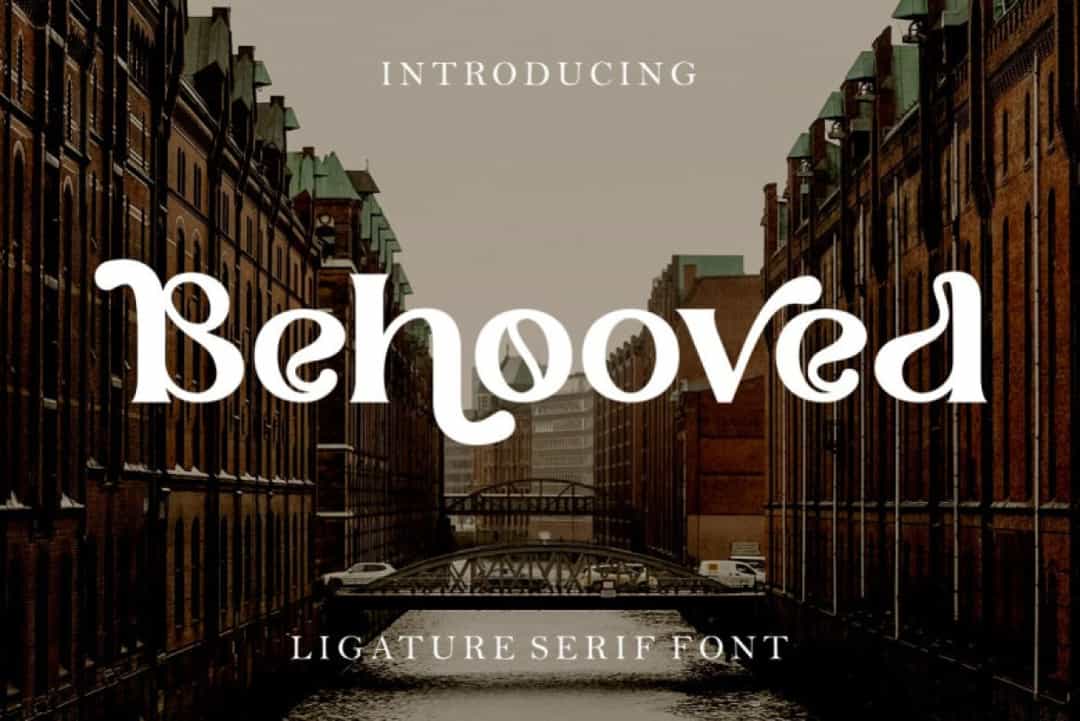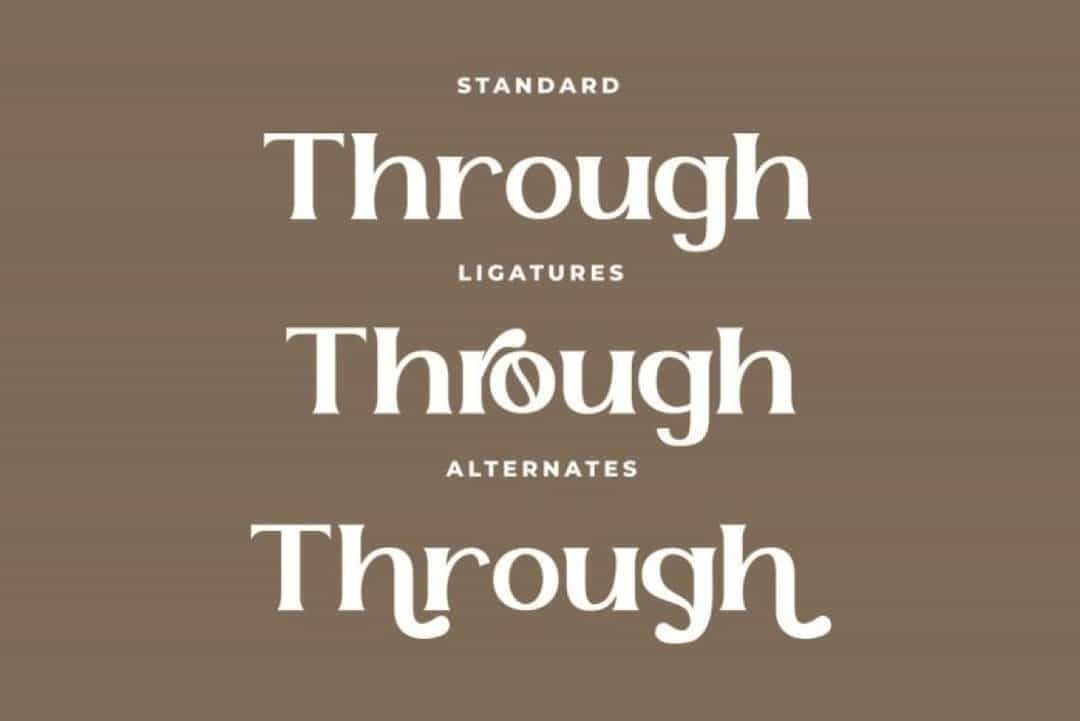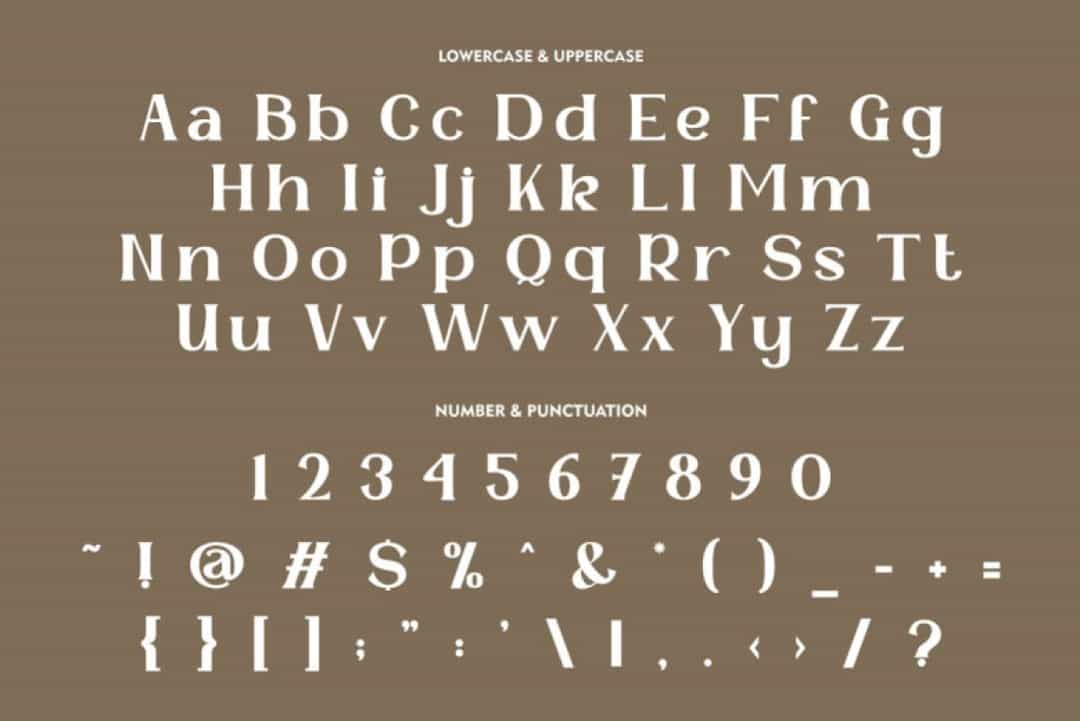
Behooved is an elegant retro serif font. With stylistic, swash, titling, and discretionary ligature options as well as standard ones available. Behooved provides both strong character and soft characteristics in its strong ligature serif font design, and offers plenty of discretionary and standard ligatures that give the font its hallmark look. Behooved has everything one would expect of an excellent serif font!